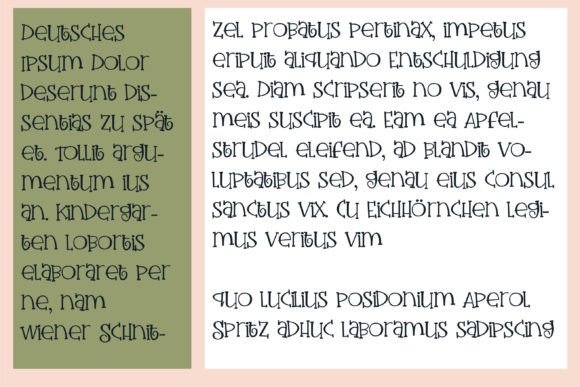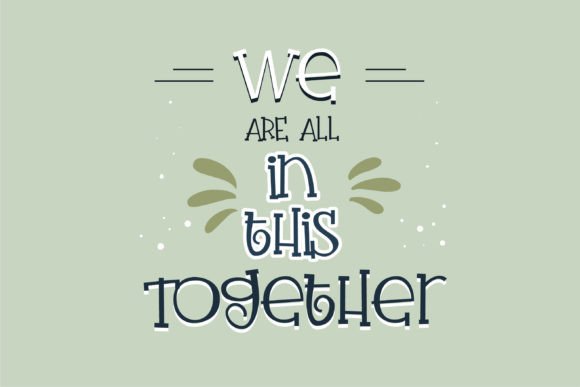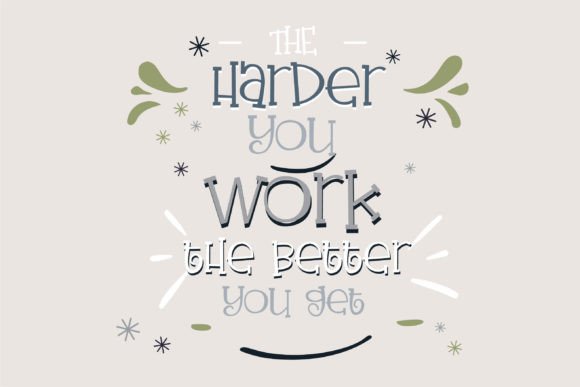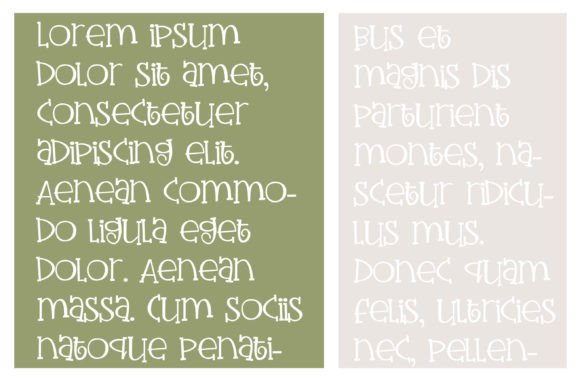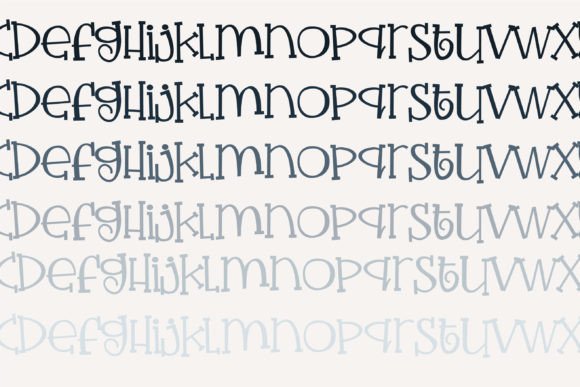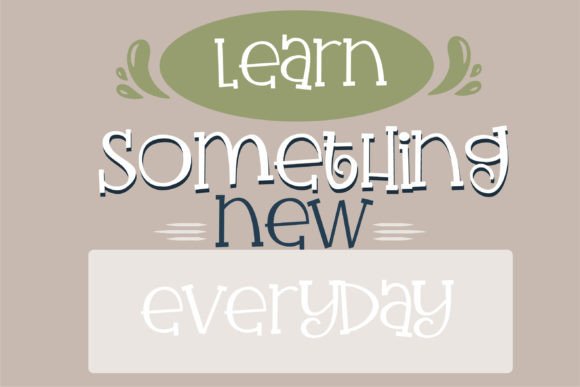
Introduction to Snicket Font
As a designer, you’ve probably found yourself in a moment where the perfect font can make or break a creative project. Maybe you were brainstorming ideas for a children’s book, or perhaps you were designing a logo for a quirky startup. Whatever the project, the right font can evoke the perfect tone and set the stage for a truly engaging experience.
That’s where the Snicket Font comes in – a simple, hand-written serif font that’s as playful as it is charming. With no descenders to weigh it down, this font is perfect for projects that require a lighthearted, youthful vibe. Whether you’re working on a free download or a high-quality design, Snicket Font is an excellent choice for designers looking to add some whimsy to their work.
Key Features of Snicket Font
- High-quality, unique font design suitable for creative projects.
- Character size: 1000 glyphs, ensuring comprehensive support for multilingual text.
- Resolution: Optimized for high-resolution displays, making it perfect for print and digital applications.
- Designed to be versatile and adaptable, suitable for a wide range of creative projects, from logos to book covers.
- Perfect design resource for graphic designers, artists, and writers seeking a unique and high-quality font.
Honest Review: Snicket Font
I recently had the chance to work with the Snicket Font, and I must say it’s a delightful addition to any design project. The high-quality typography is perfect for creating a unique and captivating look that will elevate your creative project to the next level.
- ✨ The font itself is incredibly detailed and well-crafted, with a unique aesthetic that’s sure to impress. Whether you’re working on a personal project or a commercial design, the Snicket Font is sure to make a statement.
⚠️ One potential limitation of the Snicket Font is that it may not be suitable for all design projects. The font’s distinctive style may not be to everyone’s taste, and it may not be the best choice for projects that require a more traditional or conservative look.
Overall, I’m thoroughly impressed with the Snicket Font. It’s a high-quality design resource that’s perfect for creative projects, and its free download makes it an excellent choice for designers on a budget. If you’re looking for a unique and eye-catching font, I highly recommend giving the Snicket Font a try.
The Snicket Font is ideal for various creative projects, including graphic design, digital art, and typography-based designs. Its unique style and high-quality design make it a valuable resource for designers and artists.